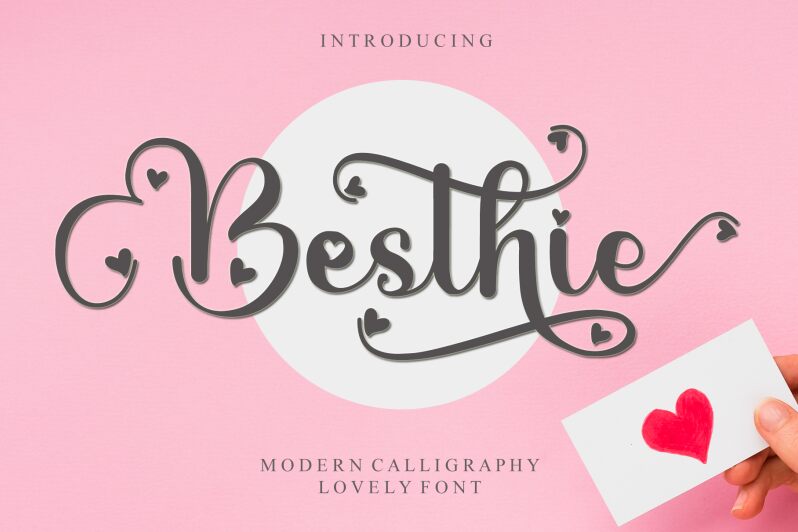
Besthie, designed by Letterafa Studio, is a captivating modern calligraphy font that effortlessly combines elegance and playfulness. Its semi-light weight adds a touch of delicacy to any project, making it perfect for wedding invitations, feminine branding designs, or graceful blog headers. With its flowing strokes and graceful curves, Besthie exudes sophistication and charm. Whether you're crafting a logo for a luxury beauty brand or designing a stylish packaging for artisanal products, this versatile font promises to elevate your creations with its timeless appeal. Unleash your creativity with Besthie and let your designs shine with refined beauty.